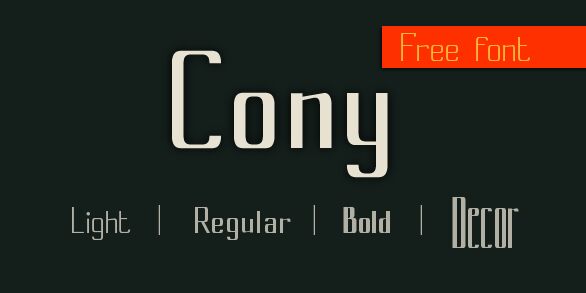
Cony by Serge Shi is a free retro sans serif with towering, extremely narrow proportions. Its strokes shift sharply between hairline-thin and solid verticals, lending the letters an elegant poster-like snap. Rounded joins and clipped geometric turns soften the otherwise severe silhouette.
Its Art Deco flavor points directly to glamorous nightlife. That period reference suits fashion campaigns, nightclub posters, magazine covers, and cocktail packaging, especially when the towering letters echo skyscraper silhouettes or streamlined architectural illustration, turning the words into part of the architecture or signage within an image.